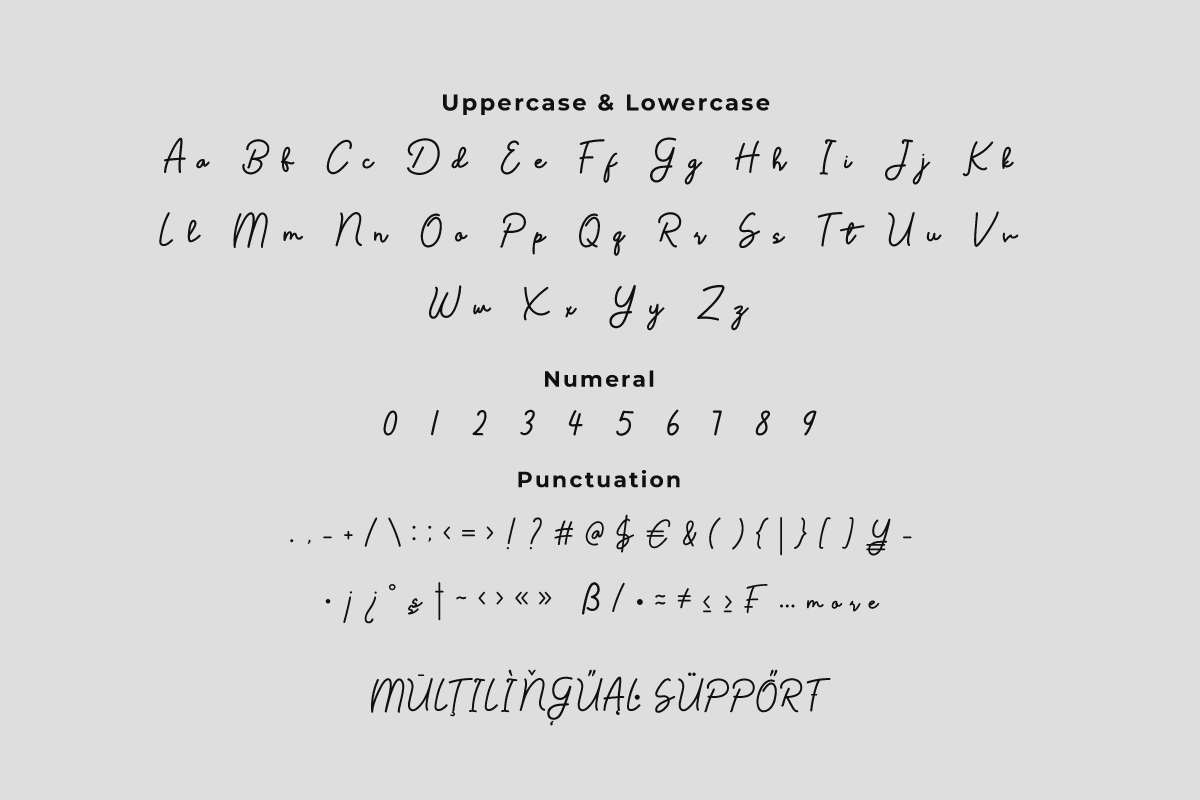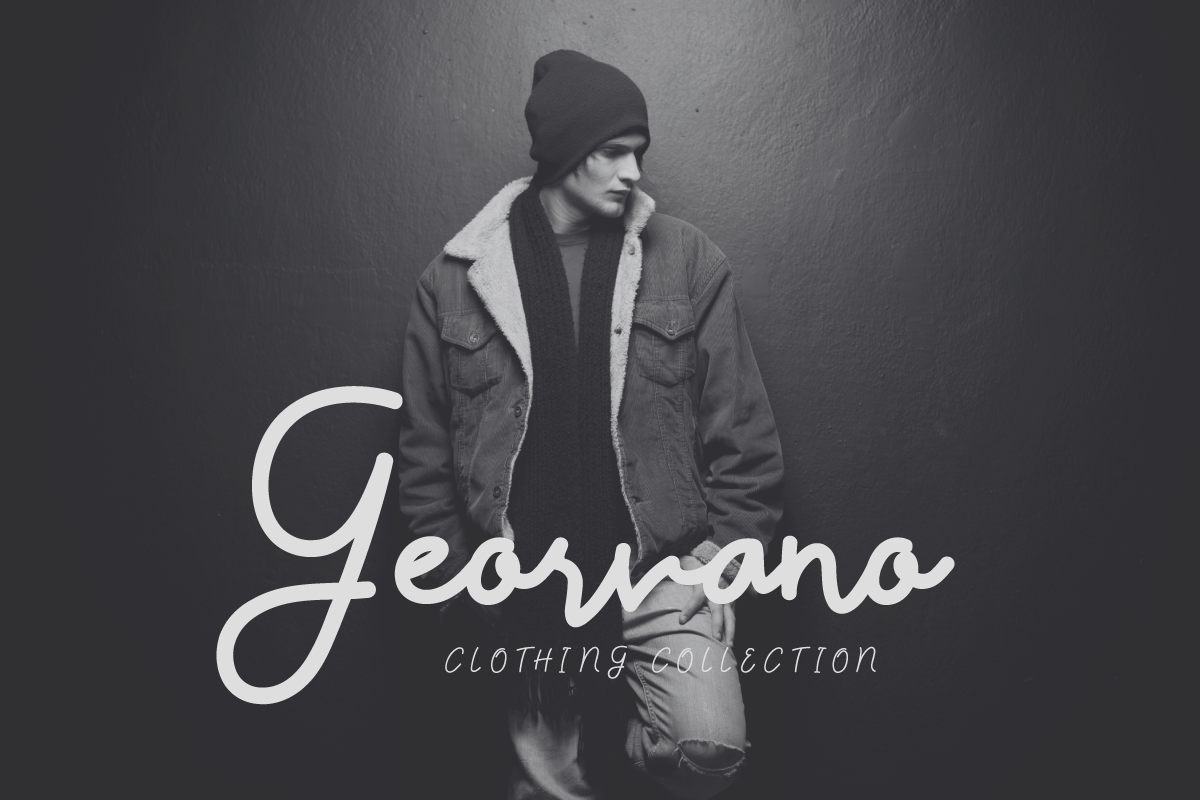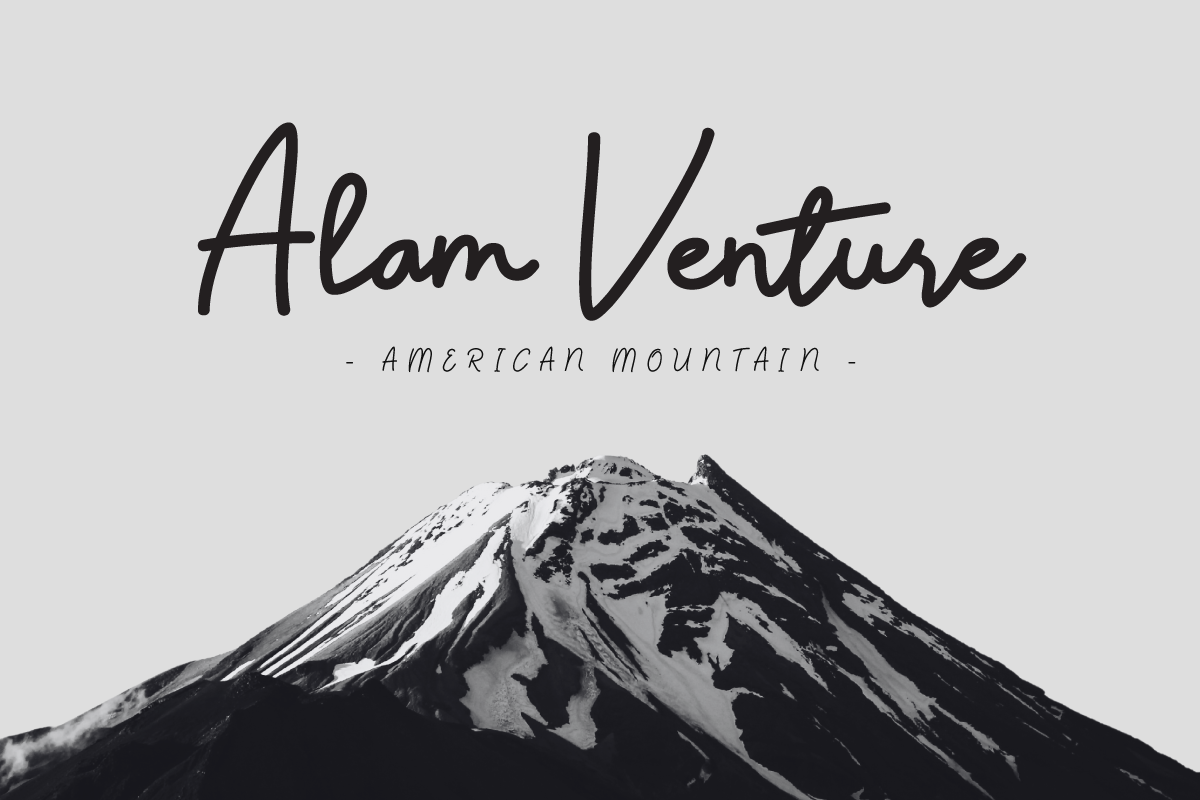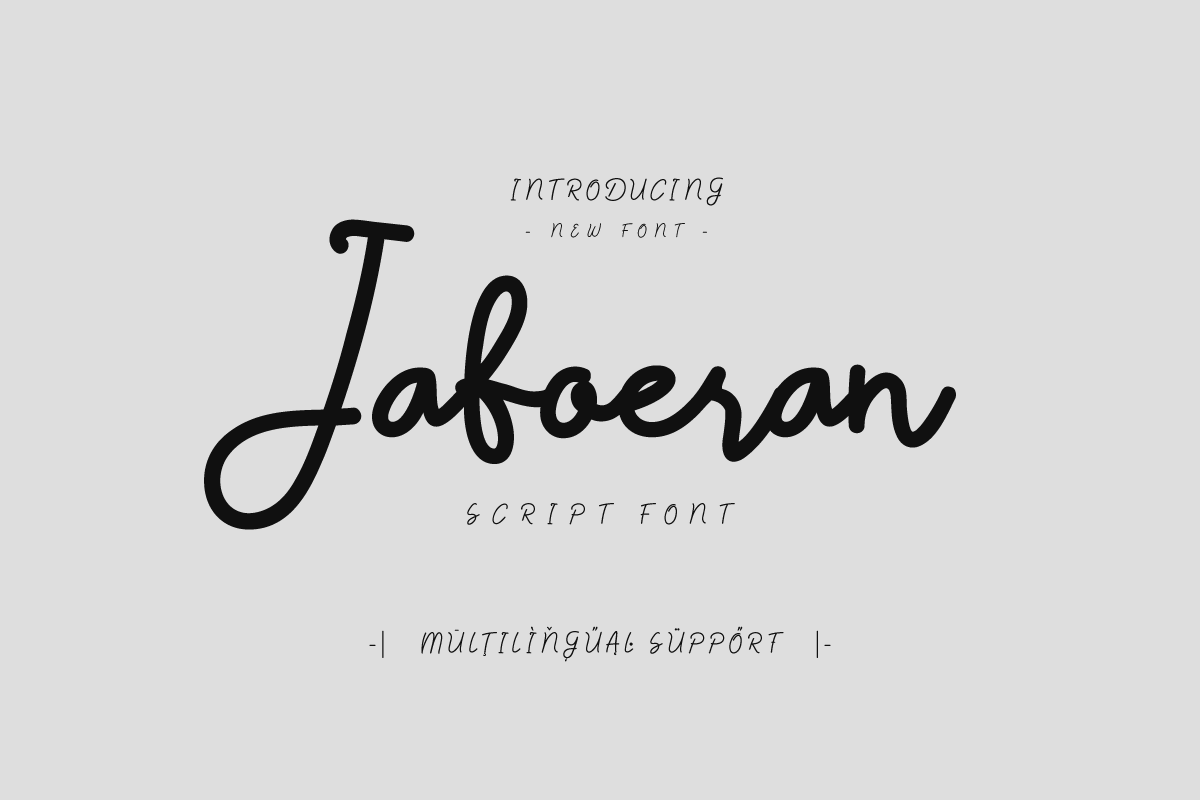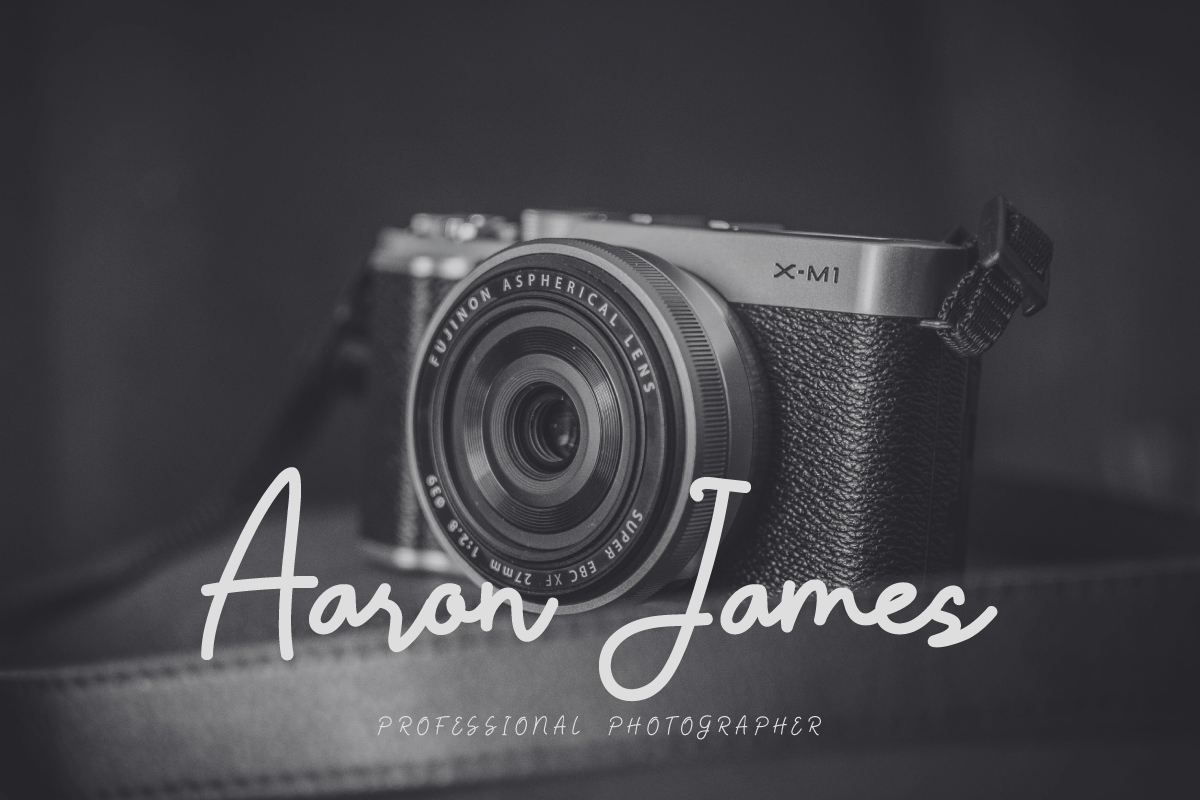
Jaboeran - Script Font
Jaboeran is a symbol of softness and beauty in typography. With consistent monoline touches and flowing characters, each letter exudes ease and elegance. This font is an ideal choice for projects that require a friendly and inviting feel, from logo designs to greeting cards. Jaboeran brings timeless softness to every detail, ensuring that your every project is filled with unmatched charm and appeal.